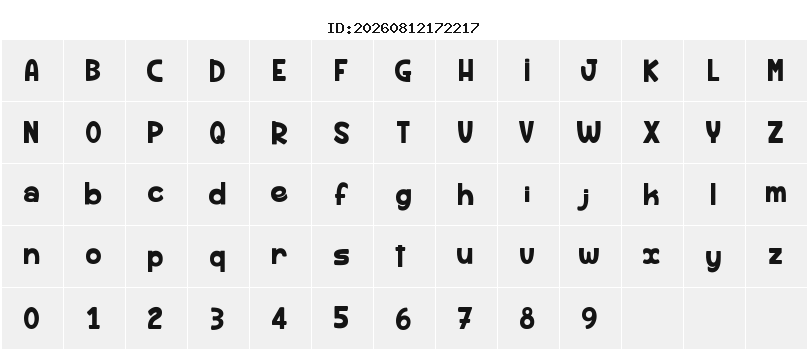
• Font Name: Rhum Banane
• Full Font Name: Rhum Banane
• Designer: dcoxy Medina Gregory
• Manufacturer: dcoxy Medina Gregory
Rhum Banane.ttf is a modern, elegant sans-serif font designed for ultimate readability and visual harmony. Perfect for branding, headlines, web design, and print materials.